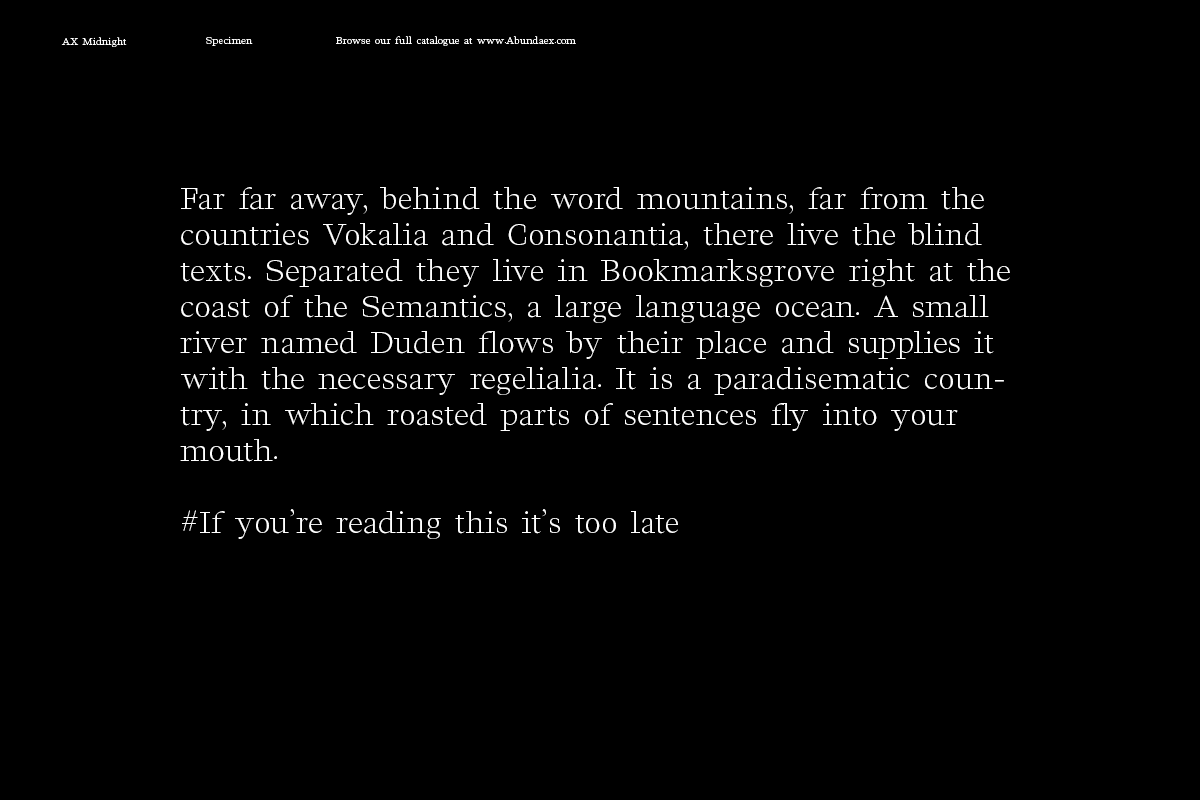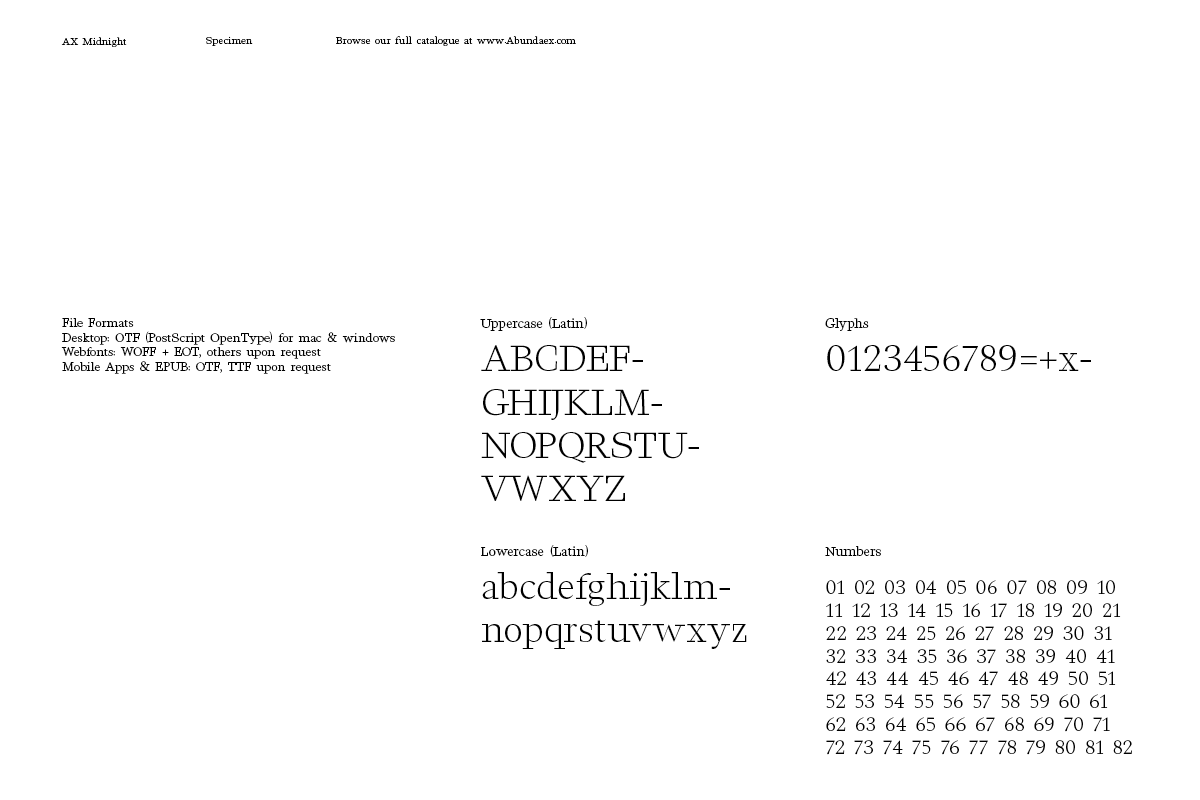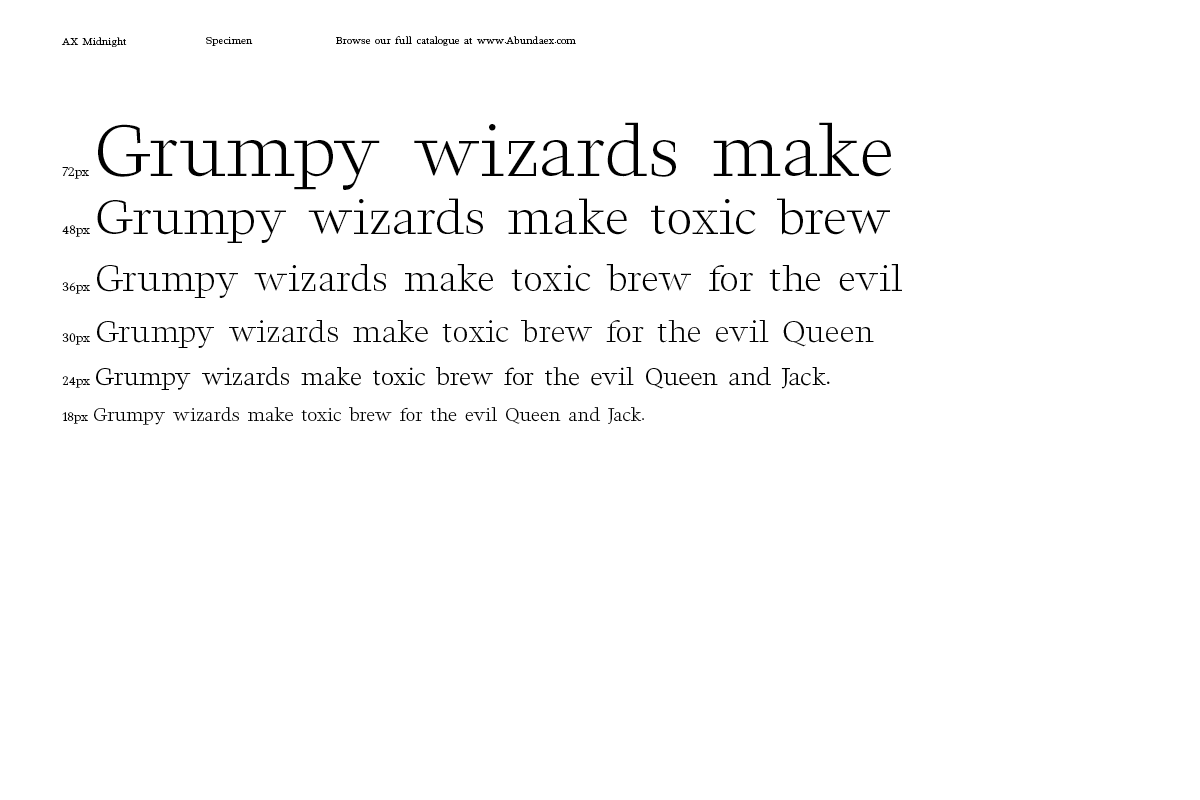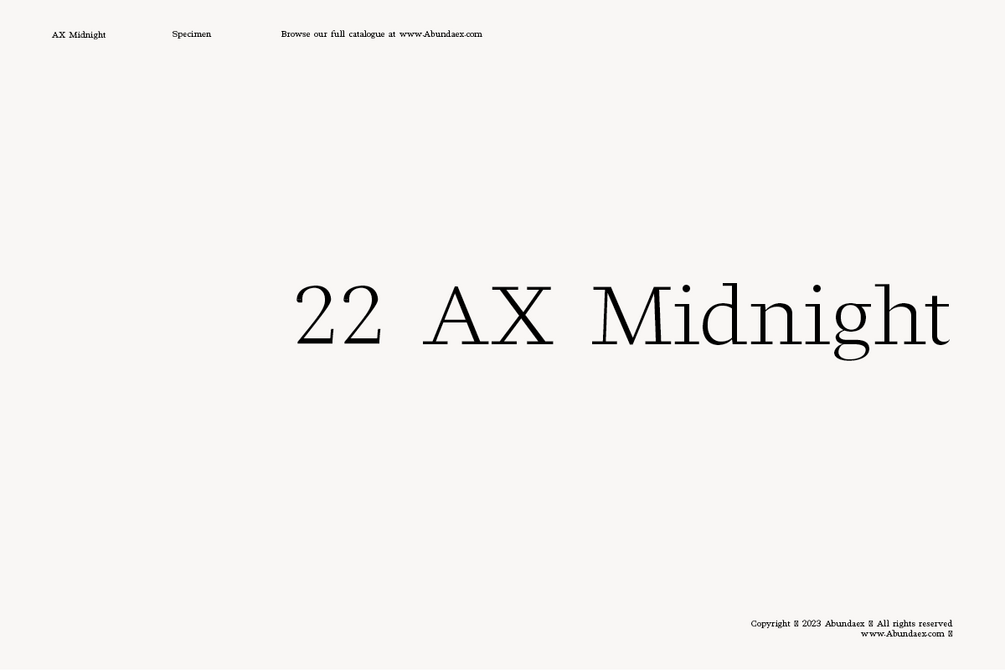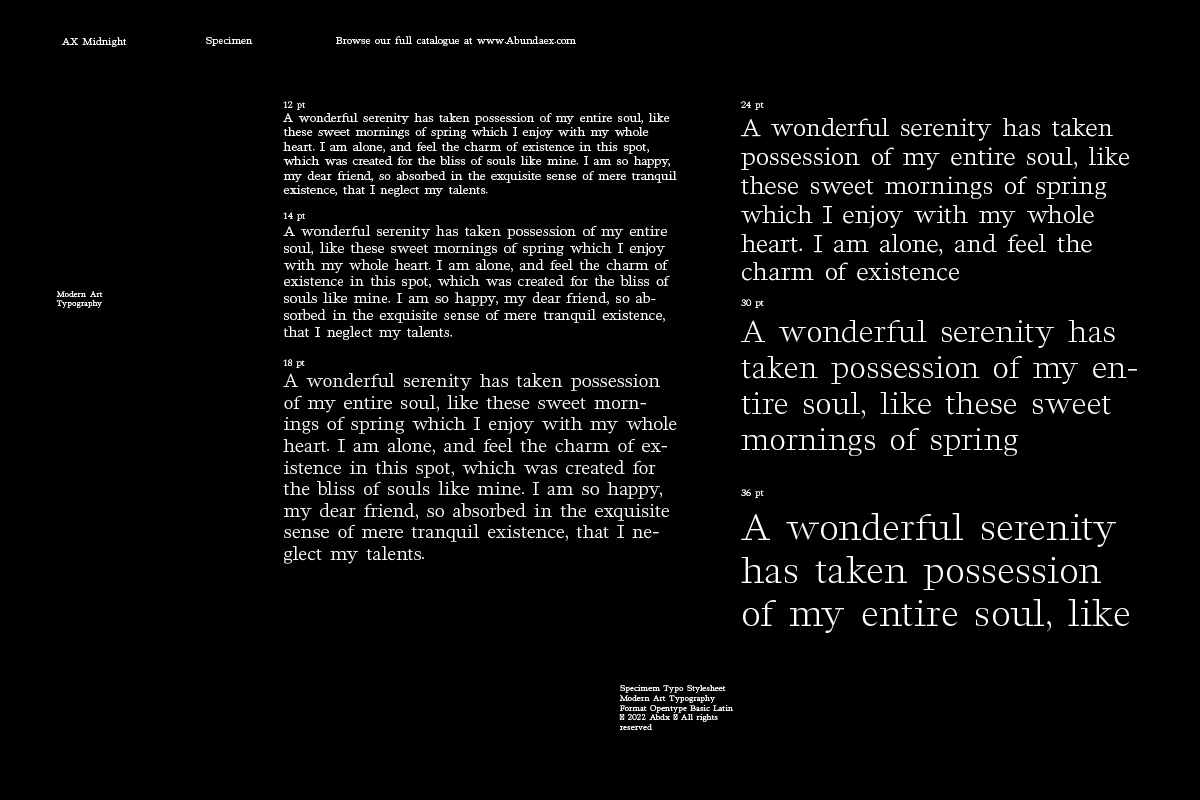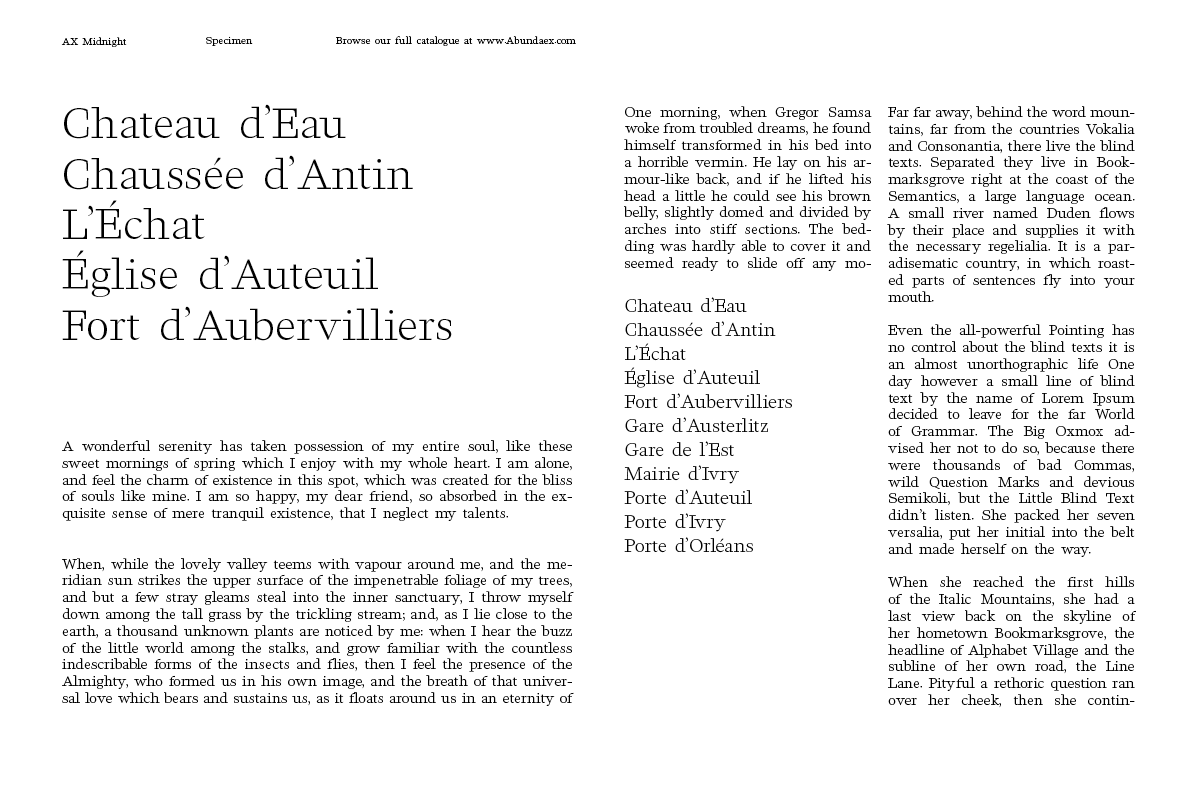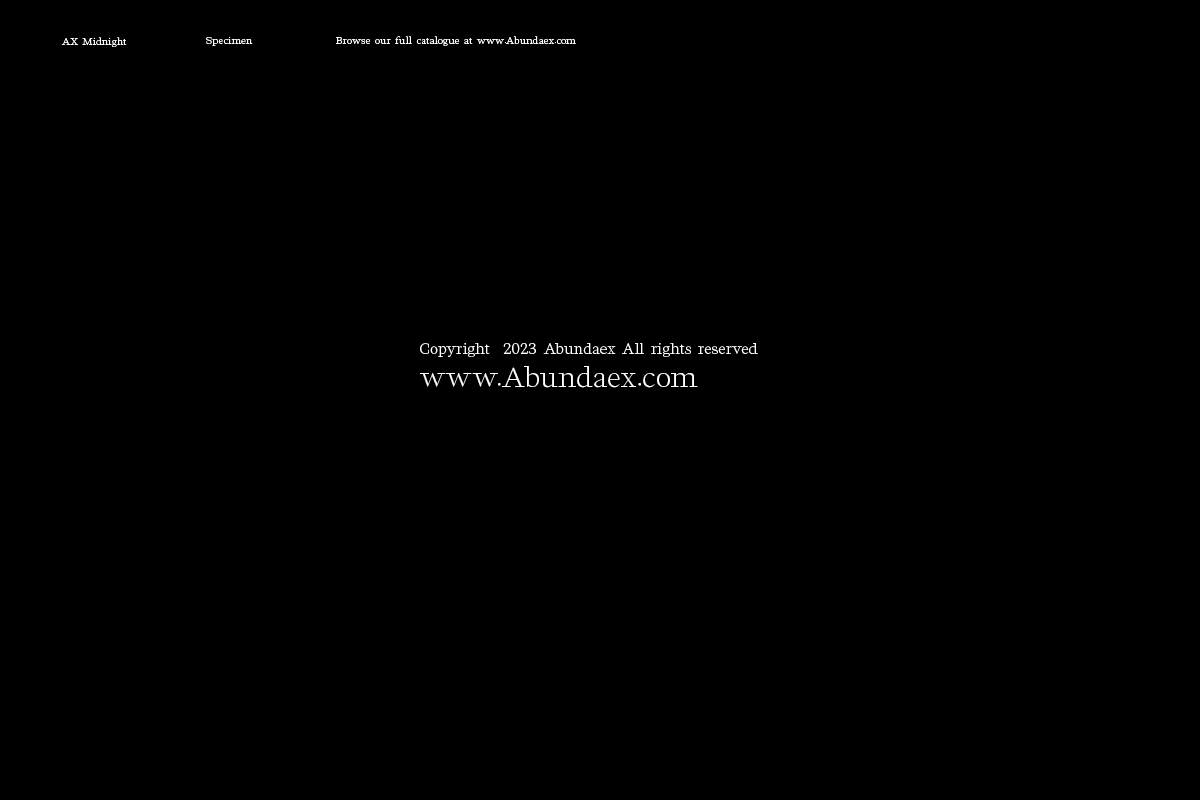
Midnight Serif Font
A modern slab serif font, simple and sharp-looking. Excellent for headlines, Bodytext and everything in between.
Form Slab Serif Font